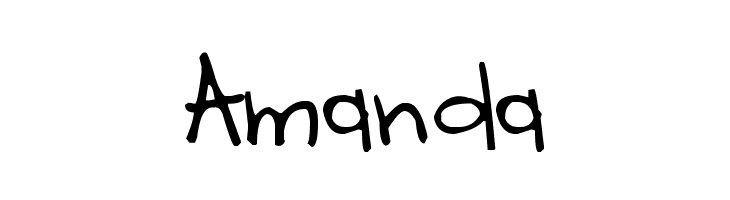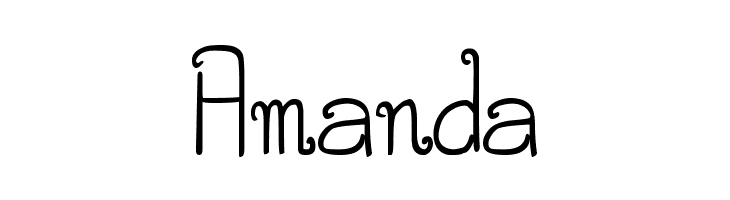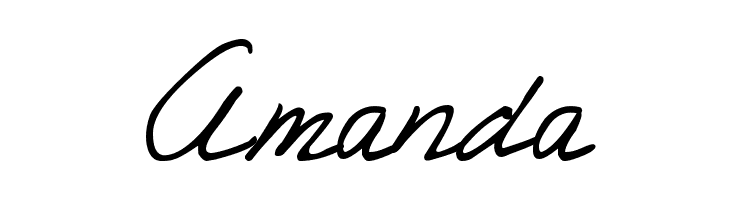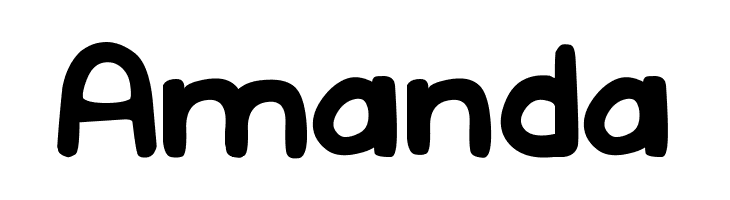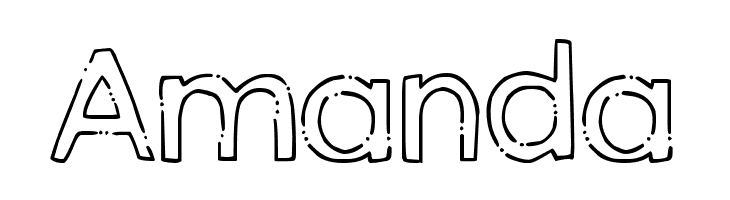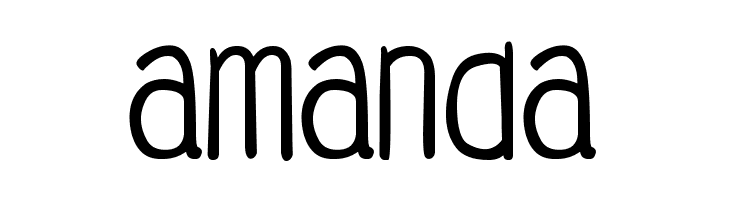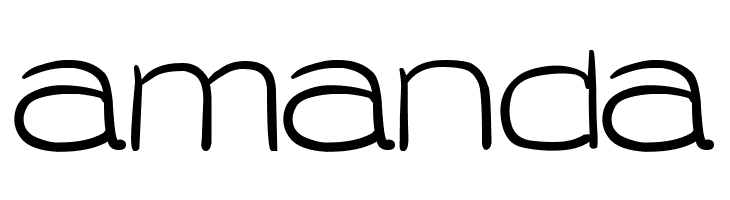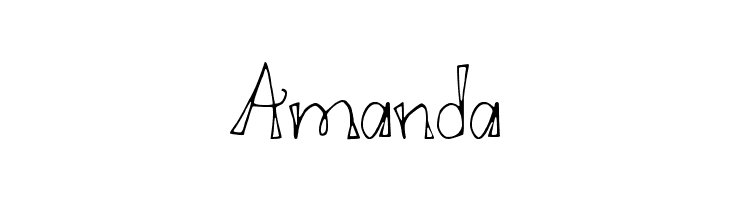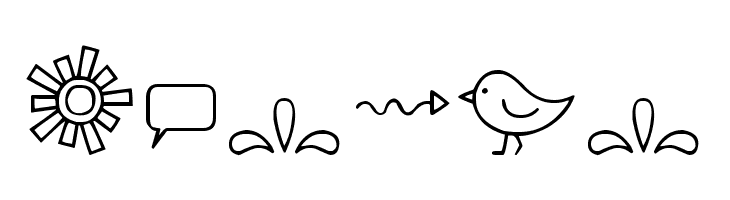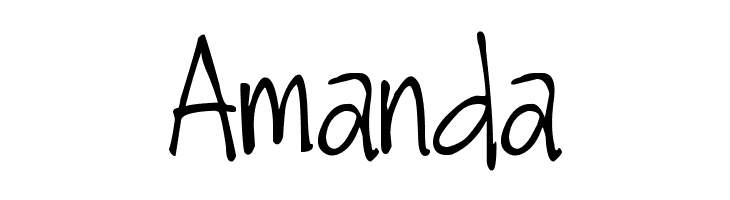
• DJB Coffee Shoppe Espresso
A playful, handwritten font with rounded edges and a friendly appearance.
• DJB Coffee Shoppe Venti
A playful, handwritten-style font with rounded edges and consistent stroke width.
• DJB Color Me Chic
A playful, casual handwritten font with fluid strokes and a natural flow.
• DJB Constance Beauregard
A whimsical, handwritten font with playful curves and artistic flair.
• DJB Crazy Goofy Cool
A playful, hand-drawn font with quirky, irregular characters.
• DJB CRIS script
A casual script font with fluid, handwritten strokes and a natural, elegant style.
• DJB CURLIE WURLIE
A whimsical and decorative font with playful curls and swirls.
• DJB Danielle
A playful and casual handwritten font with a whimsical and dynamic style.
• DJB DANIELLE 2.0
A playful handwritten font with a casual and dynamic style.
• DJB Dear St. Nick
A playful and whimsical script font with flowing, connected letters.
• DJB DOODL E DOO
A playful, hand-drawn font with a whimsical and doodle-like style.
• DJB Doodled Bits
A playful collection of hand-drawn doodle icons with a whimsical and artistic style.
• DJB Doodlie Beans
A whimsical and decorative font with playful, unique letterforms.
• DJB Downstairs at the Abbey
A playful and whimsical font with dynamic curves and angles.